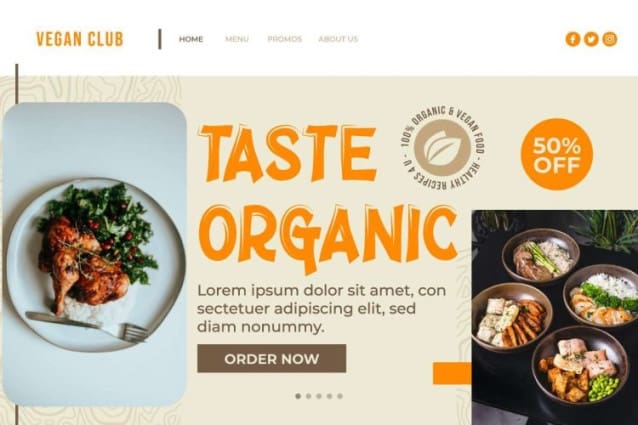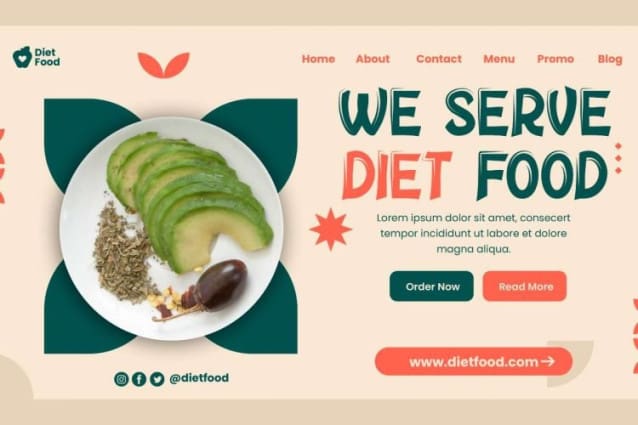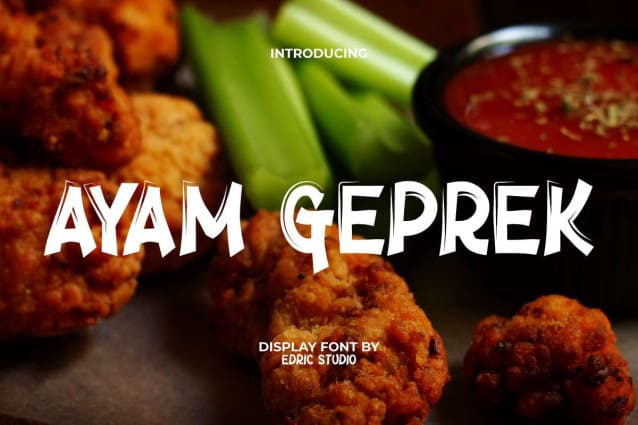
Ayam Geprek Font
Ayam Geprek Font is a unique playful foodies display font with an attractive sketch style. You can see that from every angle the letters have a kind of subtle scribble that stands out. It will bring a different sensation to your design, such as apps, billboard, blogs, cover, flyer, header, logos, menu, packaging design, poster, product labels, screen print, signage, stationery, sticker, title, website, and much more.
Ayam Geprek Font comes with a full set of ALL CAPS for Uppercase and Lowercase letters, Number, Punctuation and Symbol. This collection of fonts is to complement your special project, it can be adapted to various industries such as ads, café, content creator, culinary, graphic design, handicraft, healthy products, party or festival event, movie, printing, publishing, restaurant, writer, and whatever looks fun to go along with this font!